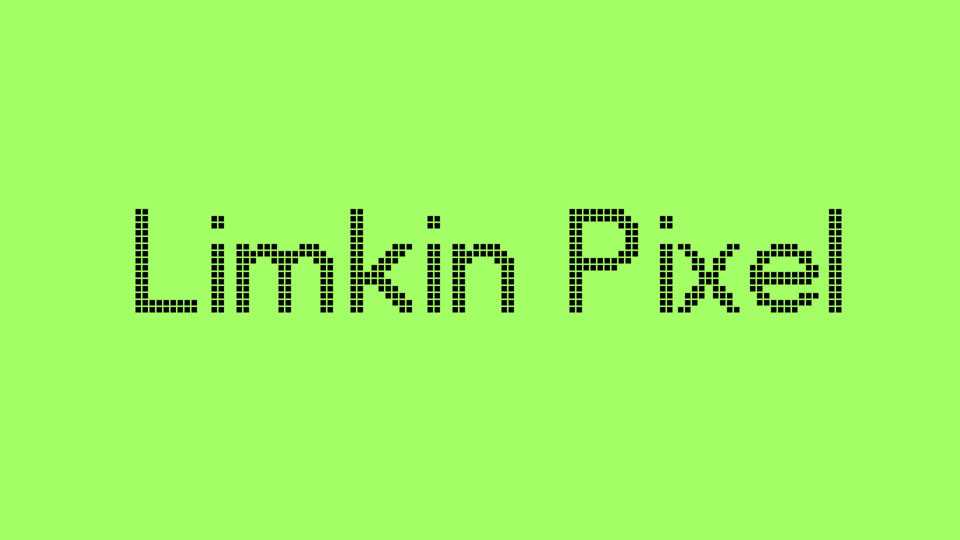
Download Limkin Pixel font, a variable pixel typeface that brings dynamic versatility to digital design. It features letterforms composed of individual pixels, allowing for seamless adjustments in weight, width, and size.